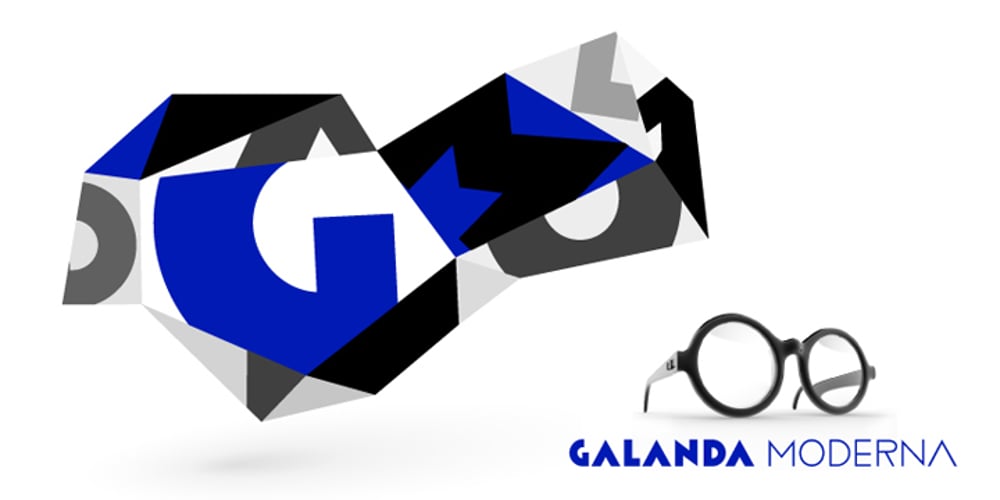
Galanda Moderna Font Family was designed by Radko Hromátka and published by Radko Hromátka. Galanda Moderna contains 2 styles and family package options. Galanda Moderna is an occasional caps typeface with a reference to the book cover design of famous Slovak painter, graphic artist and illustrator Mikuláš Galanda (1895-1938). The text, of the basic design Regular, holds a nostalgic touch of early 20th century. The Light version is treated separately, not only as a literal processing of the original weight Regular, and therefore the text appears a bit different with even secession flavor. The font is produced in OpenType format, in two weights Regular and Light and it is multilingual. Alphabetic characters are geometrically clean with strong accents. The font is intended mainly for posters, headlines in books, newspapers, where its plain and clear design can be fully expressed.